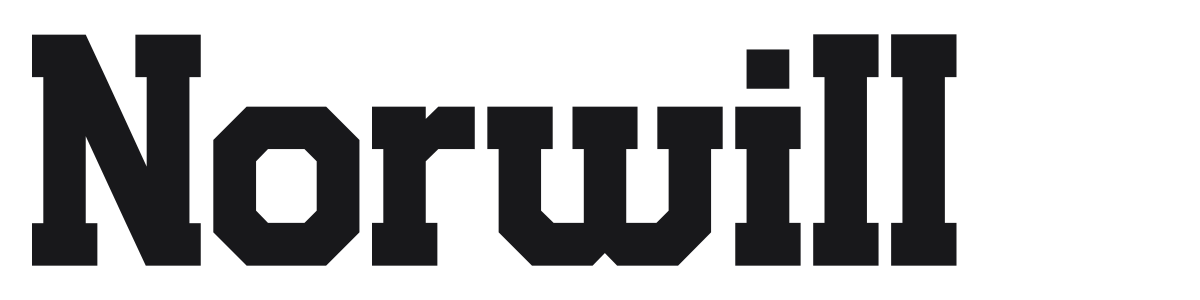
Norwill
Norwill is a heavy slab-serif built around thick, squared strokes and a blocky collegiate character. The wide proportions and chunky serifs give it an unmistakable vintage-sport energy, somewhere between a varsity letterman and a classic American sports headline. It hits hard at large sizes on posters, team branding, and apparel graphics.